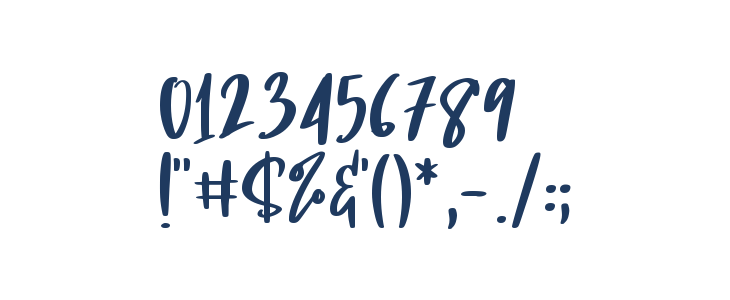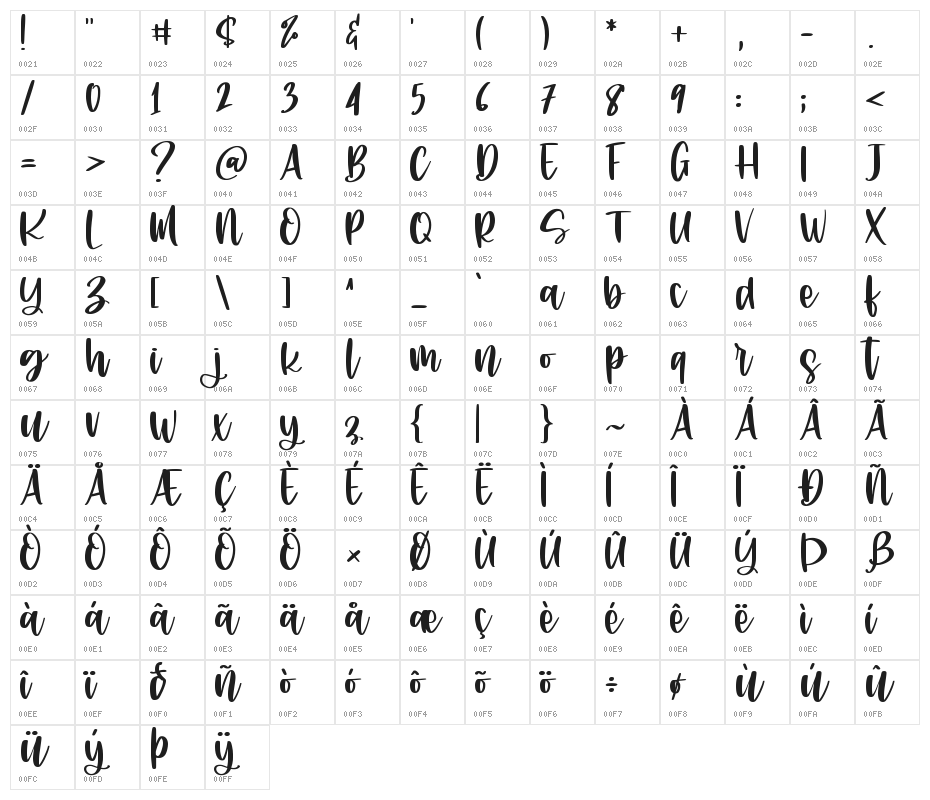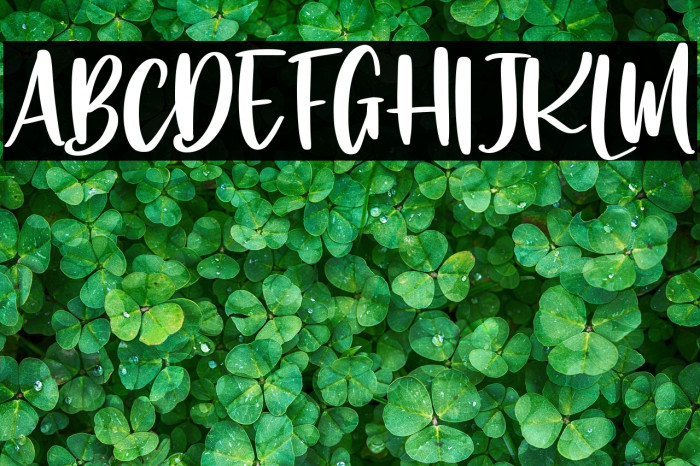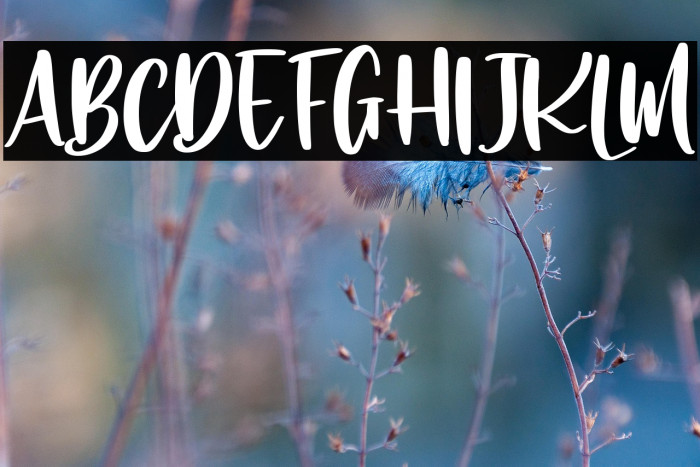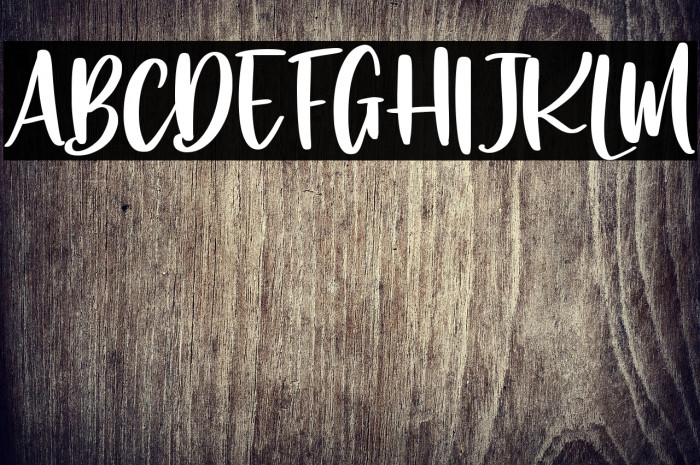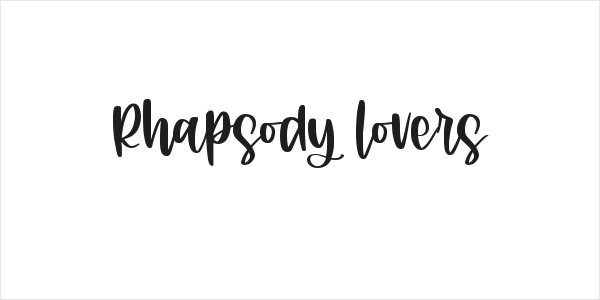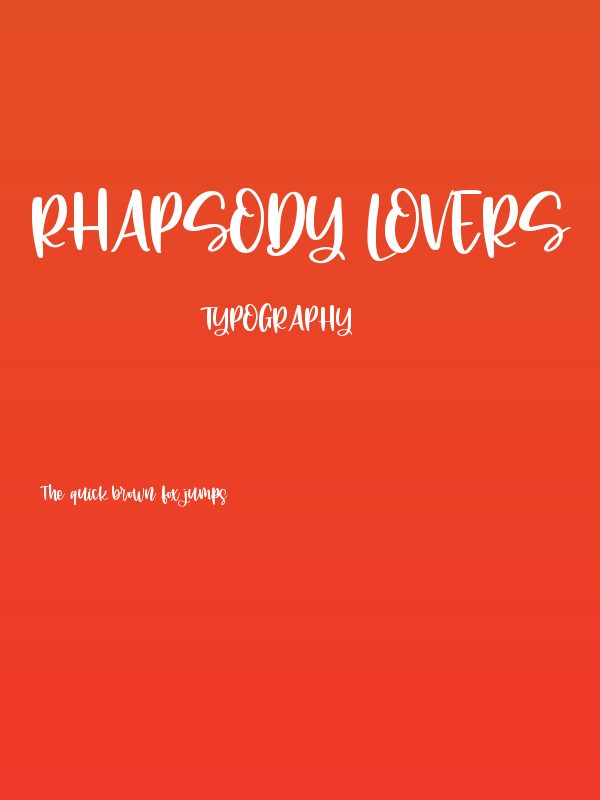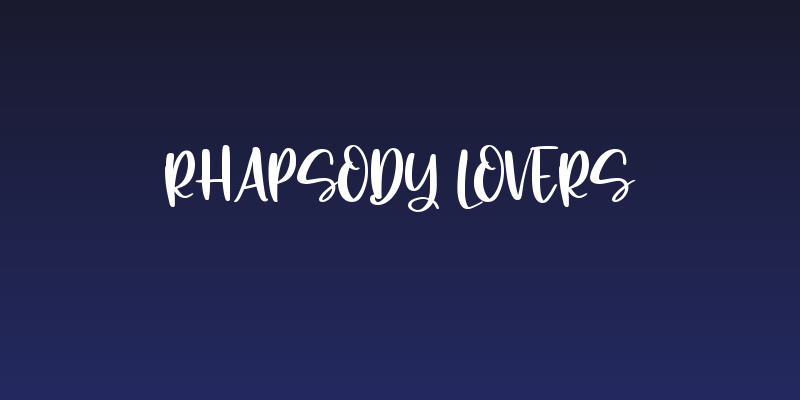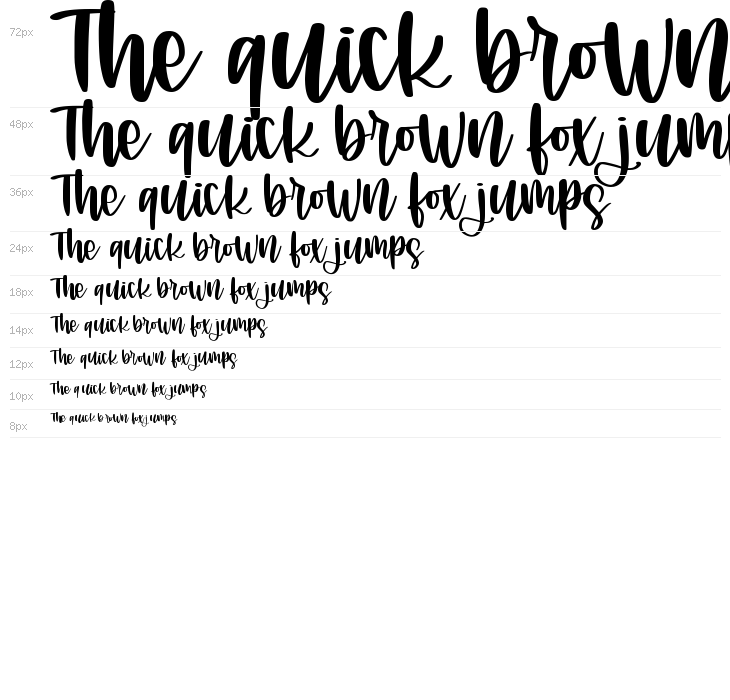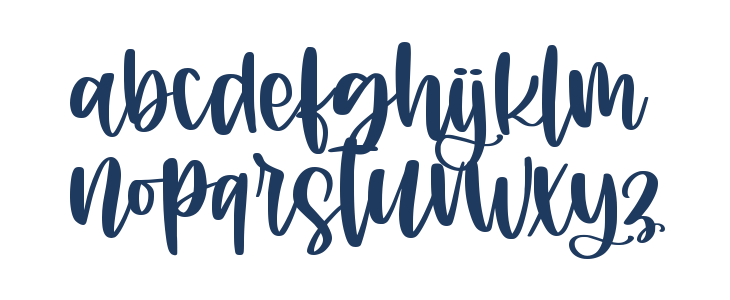
Rhapsody lovers Font
Rhapsody lovers Description
This font exudes a lively and expressive character, featuring bold, flowing strokes that mimic the fluidity of handwriting. The letters are interconnected, creating a sense of movement and rhythm. The uppercase letters stand tall with a slight slant, while the lowercase letters maintain a consistent baseline, adding to the cohesive look. The numbers and special characters are crafted with the same dynamic style, ensuring uniformity across all elements. This font is perfect for projects that require a personal touch or a creative flair.